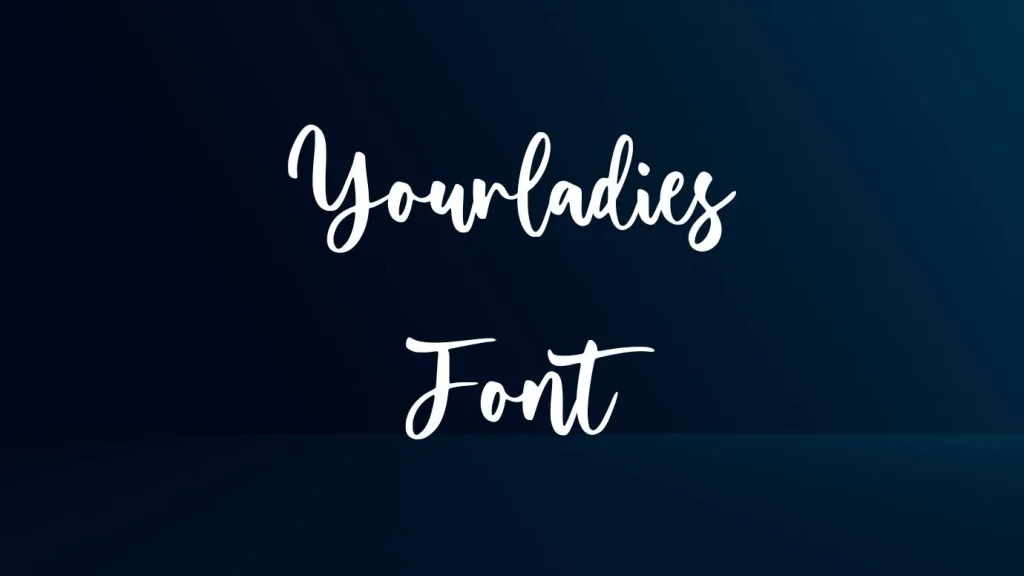
We wanted to create a typeface that would offer distinctive yet practical designs because that is the main motivation behind this typeface's creation.
This is a contemporary handwritten font by Balpirick Studio called Yourladies Font. The font used by Yourladies looks pretty and delicate. This typeface is perfect for wedding invitations, cards, and other items because of its romantic, customized appeal. Yourladies Typeface supports both TTF and OTF and is multilingual.
We wanted to create a typeface that would offer distinctive yet practical designs because that is the main motivation behind this typeface's creation.
You can utilize this outstanding typeface with alleysha handwritten script font. These designs would make excellent alternatives to other script fonts. The candle script font and this one are extremely similar.
Where to Utilize the Yourladies Font?
You can use this typeface for a variety of things in addition to advertising banners, branding, marketing, social media postings, and other special occasions. Your newly downloaded professional font enables you to produce graphics like magazine covers and more.
This font has amazing pairing quality and can easily be paired with scriptina font. It is also feasible to use this typeface for digital projects. This typeface has been used for interfaces, apps, and websites alike. Download Yourladies Font
Is it simple to read Yourladies typeface?
Without a doubt, Yourladies is a font that is simple to read. Large x-height typefaces are very readable.